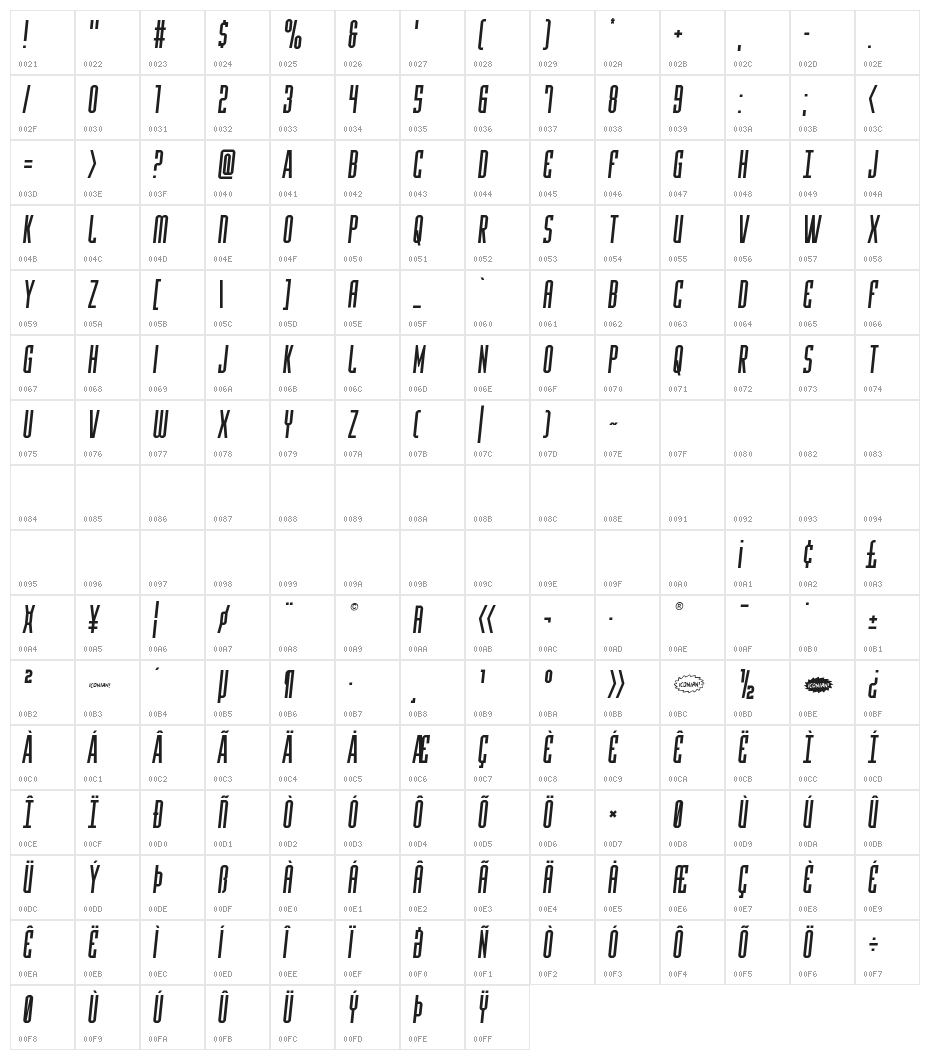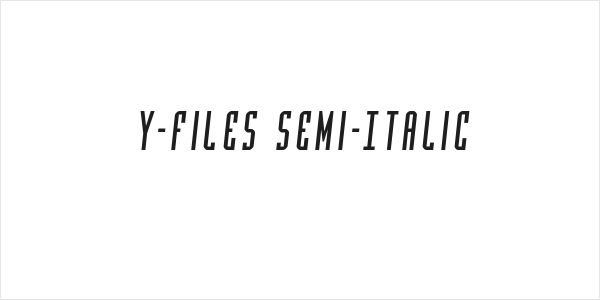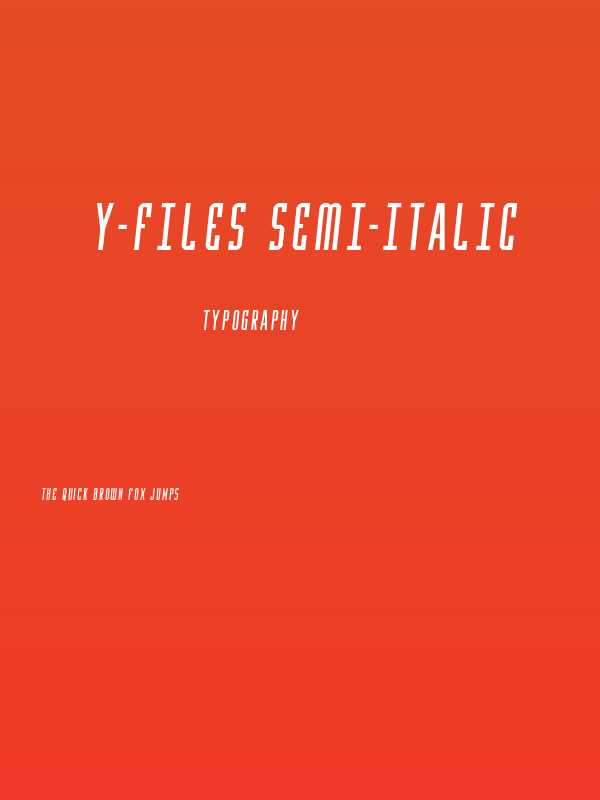
Y-Files Semi-Italic Font
Y-Files Semi-Italic Description
This font features a distinctive semi-italic style with elongated, narrow characters that convey a sense of speed and modernity. The uppercase and lowercase letters maintain a consistent slant, enhancing the dynamic appearance. The numerals are similarly styled, ensuring uniformity across the character set. The special characters are well-integrated, maintaining the sleek and streamlined aesthetic. The font's overall design is clean and sharp, making it suitable for projects that require a contemporary and energetic feel.
| Proposed Projects | Ideal for sports branding, modern advertising, and dynamic poster designs. |